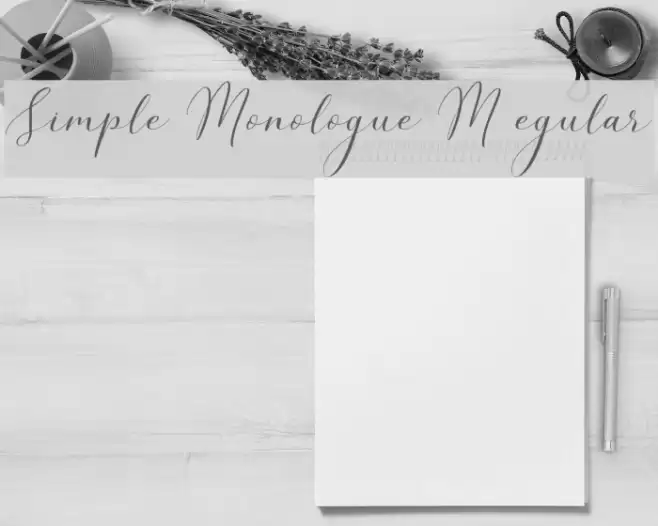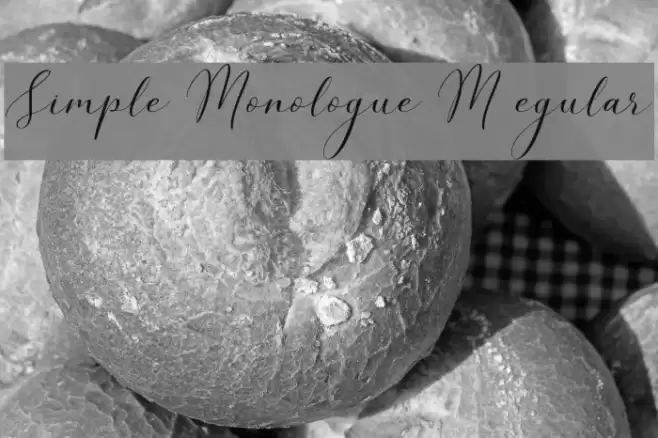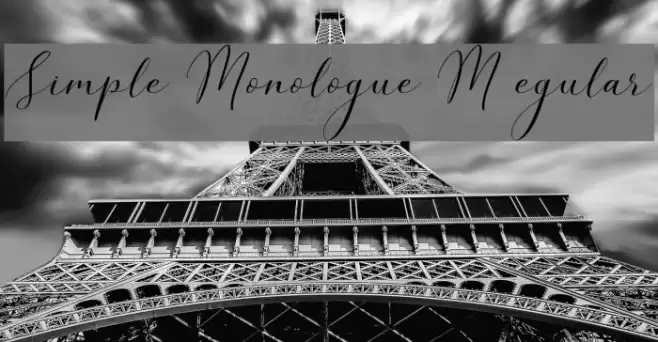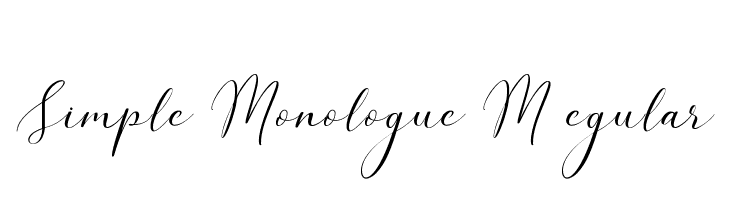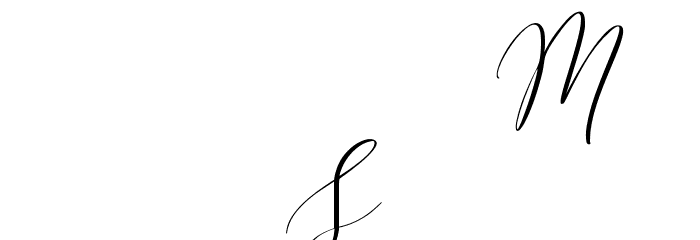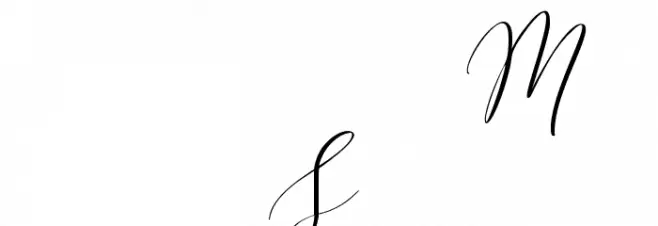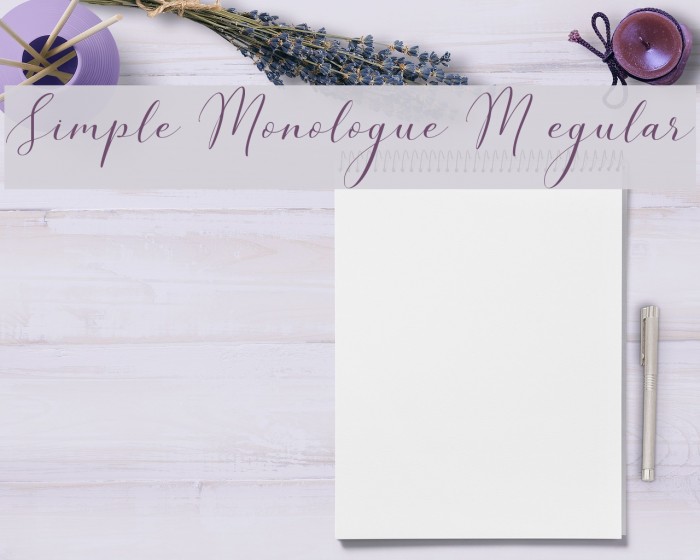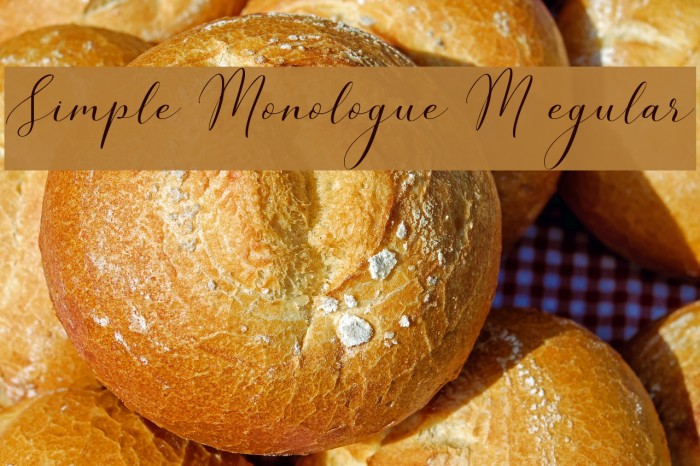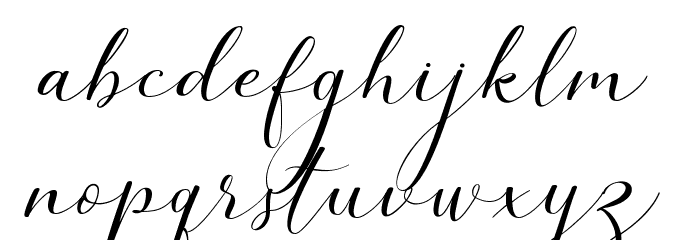
Simple Monologue DEMO Regular Font
Simple Monologue DEMO Regular Description
This elegant script font features flowing, cursive letterforms with high contrast between thick and thin strokes. The characters are gracefully connected, creating a sense of fluidity and movement. The uppercase letters are particularly ornate, with sweeping ascenders and descenders that add a touch of sophistication. The lowercase letters maintain a consistent style, enhancing readability while preserving the decorative nature of the font. The overall appearance is both refined and artistic, making it suitable for formal and creative applications.
An elegant, high-contrast script font with flowing, cursive letterforms from Uncategorized fonts.
- Proposed Projects: Ideal for wedding invitations, elegant branding, personal stationery, and artistic projects.
- Overall Style: Elegant, Artistic
- Use Case: Invitations, Branding, Stationery